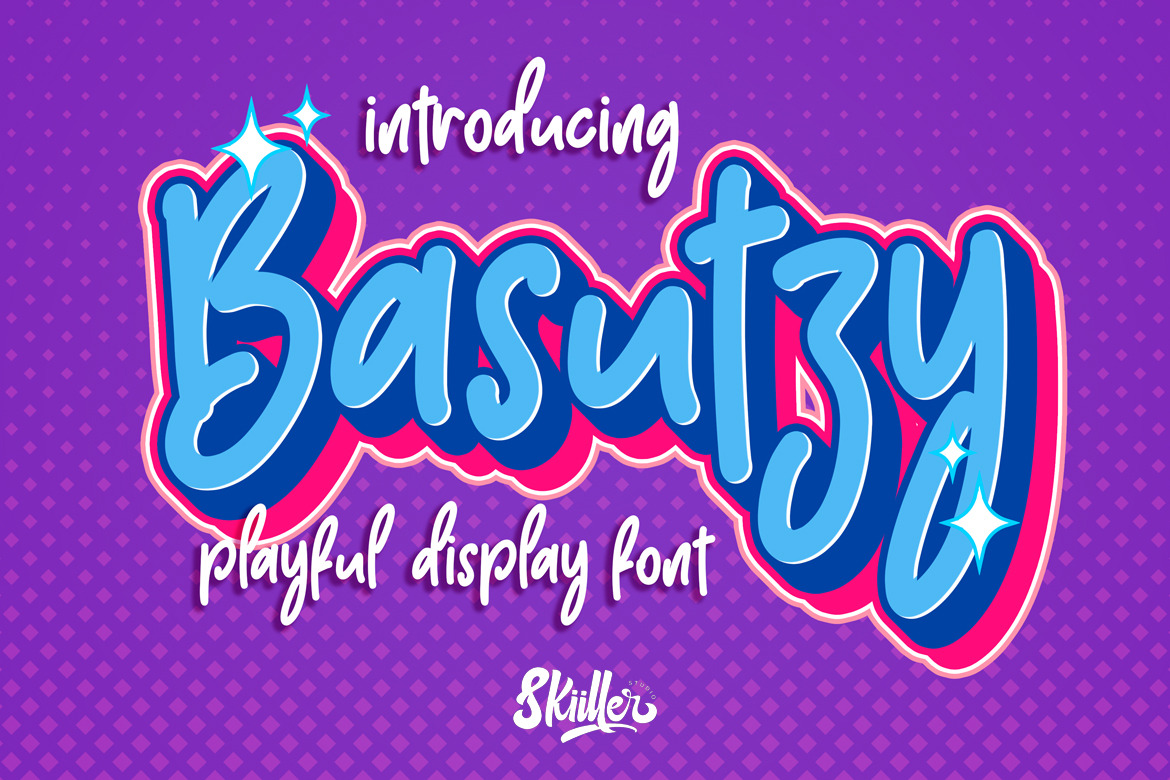
Basutzy Playful Font
Basutzy Handwritten script with a natural flow and beautiful style. Basutzy is perfect for invitation design projects, prewedding, branding, logos, wedding designs, social media posts, advertisements, product packaging, product design, labels, photography, watermarks, invitations, stationery, and any project that requires handwriting tastes .